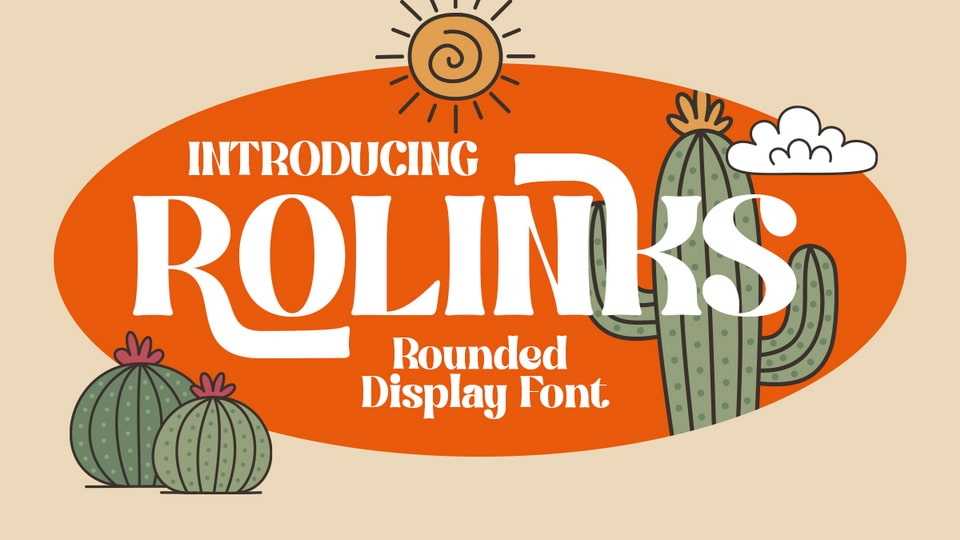
Download Rolinks font, a rounded display typeface with bold style. A blend of vintage charm and modern flair. This typeface features strong, confident serifs that evoke a sense of nostalgia